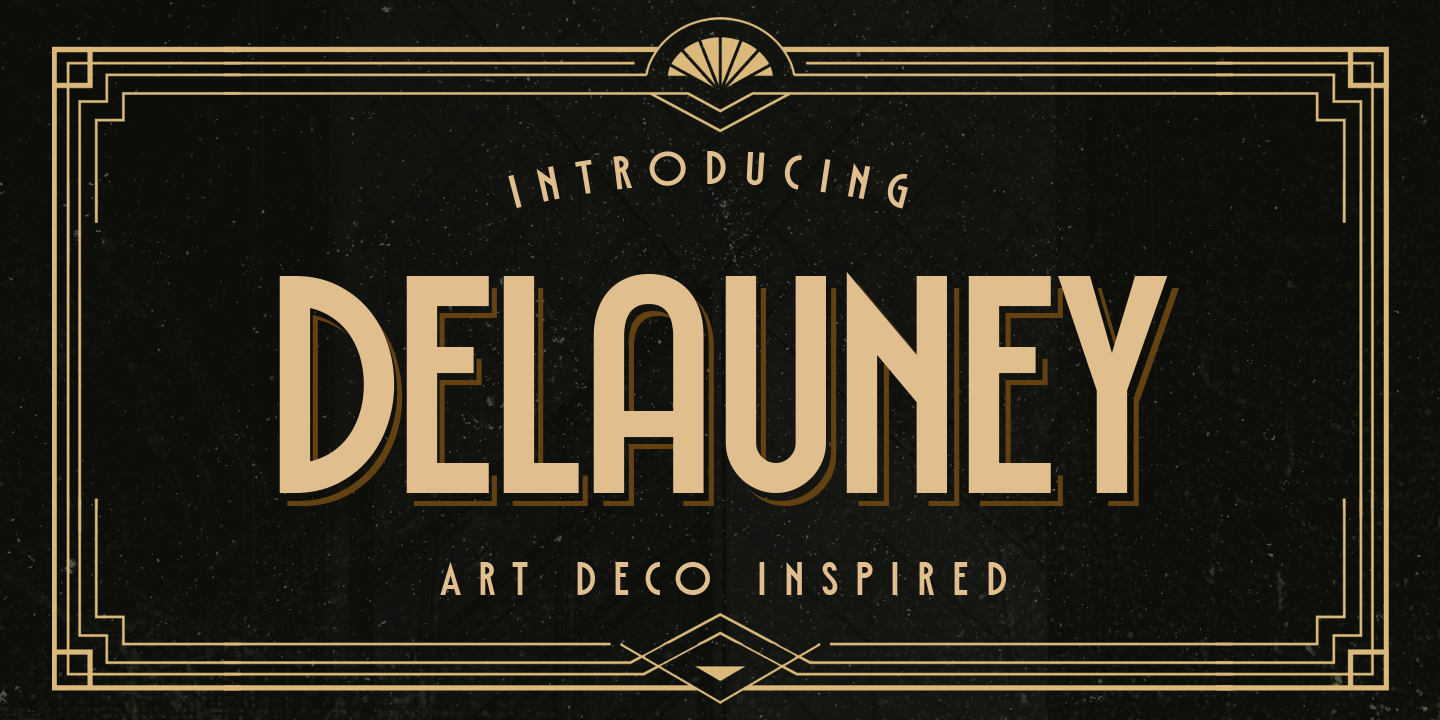
Delauney Font is perfect for modern art gallery branding, abstract design exhibitions, contemporary museum signage, avant-garde fashion marketing, geometric art installations, Bauhaus-inspired projects, modernist architecture firms, and progressive artistic movements. This geometrically sophisticated typeface excels in projects requiring artistic innovation and geometric precision where modern art meets contemporary design excellence.
What makes Delauney Font exciting is its masterful interpretation of geometric abstraction and modernist principles through precisely constructed letterforms that capture the essence of early 20th-century artistic revolution. The font features angular characters with mathematical proportions and abstract details that convey innovation, artistic vision, and the bold spirit of geometric modernism. Its avant-garde character makes it perfect for cultural institutions and creative brands celebrating artistic experimentation and geometric design principles.
Delauney Font family includes multiple weights and geometric variations that enhance its artistic appeal while providing design flexibility for contemporary art and modernist projects. The family typically offers thin, light, regular, medium, semibold, and bold weights, along with geometric alternates, abstract symbols, and modernist ornaments that complement avant-garde and contemporary art design themes perfectly.
Whether you're developing contemporary art museum identity, creating modernist exhibition materials, or designing avant-garde fashion campaigns, Delauney Font Free Download provides the perfect geometric solution for projects requiring artistic sophistication and modernist authority. This font's abstract appeal and geometric heritage make it essential for cultural institutions and creative brands pushing the boundaries of contemporary design.
The precisely constructed letterforms and geometric proportions of Delauney Font create immediate associations with modern art movements while maintaining excellent readability across contemporary applications. Its distinctive modernist personality and abstract symbolism make it an invaluable tool for designers working with galleries, museums, and progressive artistic organizations. Download Delauney Font today and bring geometric modernism to your creative projects with this artistically sophisticated typeface that perfectly captures the innovative spirit of abstract art and contemporary geometric design.